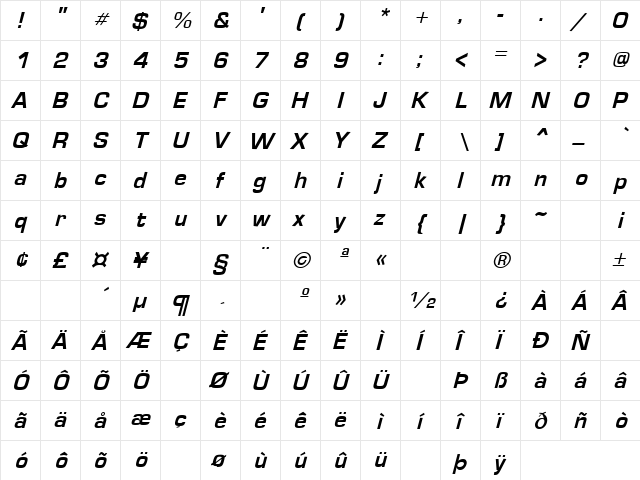
Green Mountain 12 Regular Font Preview
Green Mountain 12 Regular
Design Context for Green Mountain 12 Typeface
Green Mountain 12 is a composed and adaptable typeface that performs quietly and consistently across a wide range of design contexts.